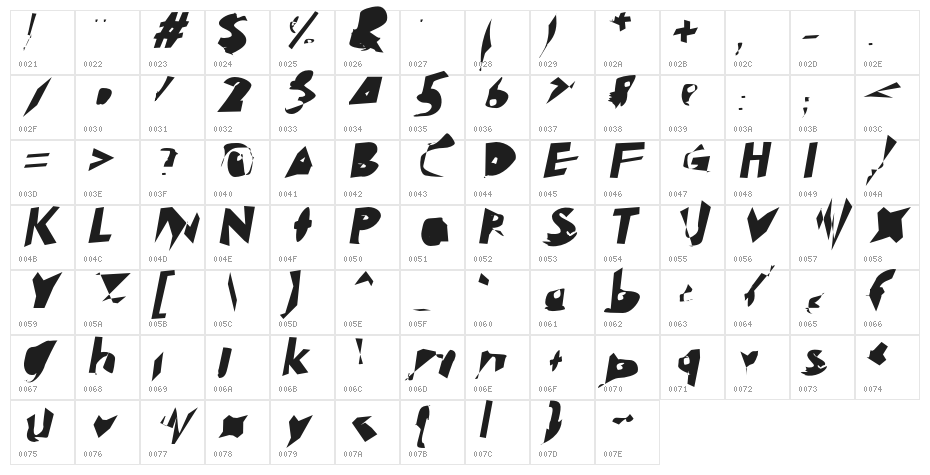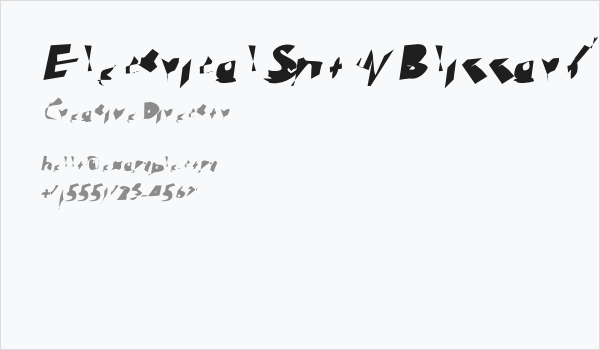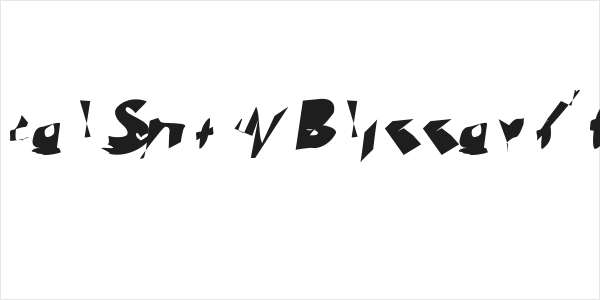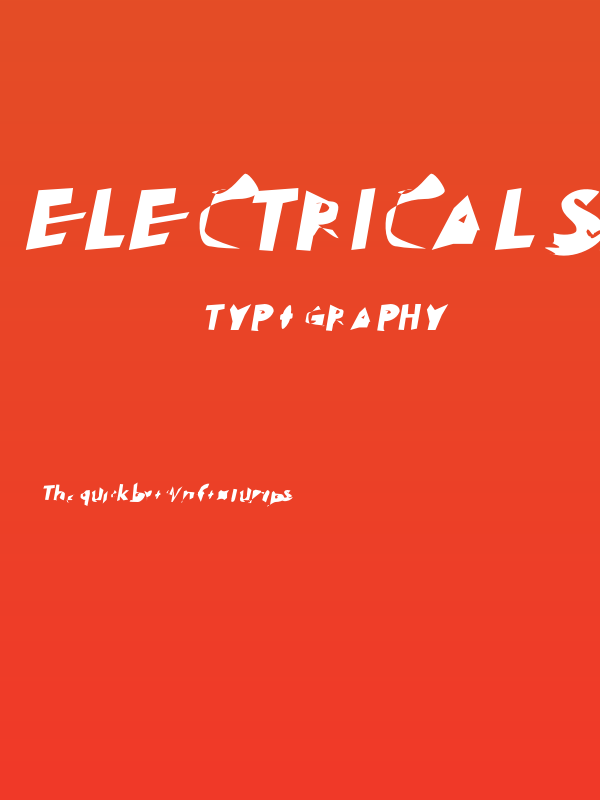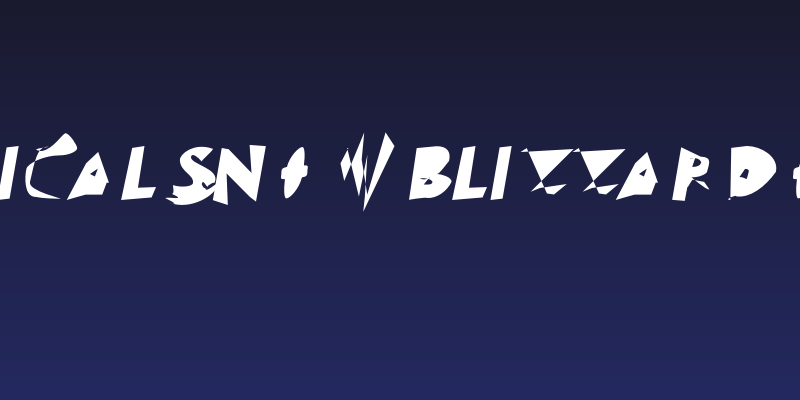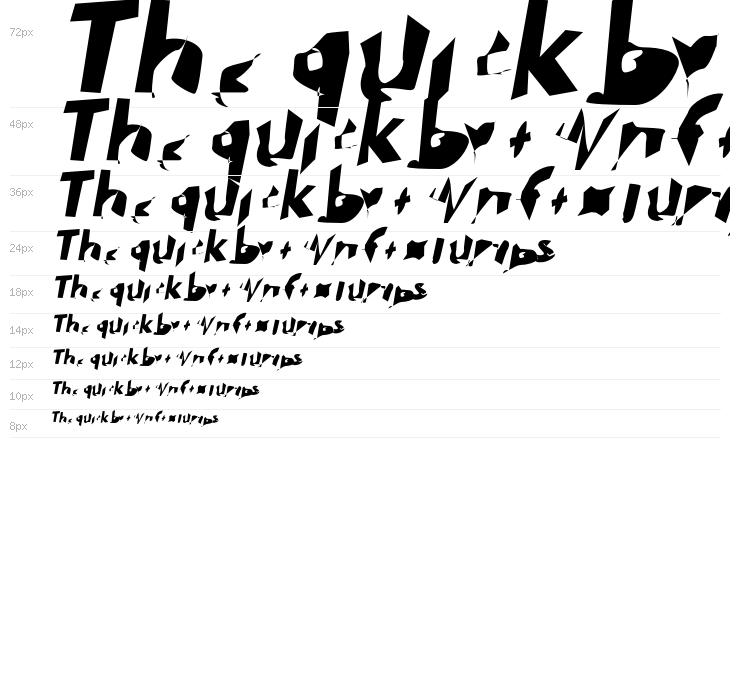
Electrical Snow Blizzard Oblique Font
Electrical Snow Blizzard Oblique Description
This font features a dynamic and edgy design, characterized by sharp angles and irregular shapes that create a sense of movement and energy. The letters appear to be fragmented or shattered, giving it a unique and chaotic appearance. This style evokes a sense of urgency and modernity, making it stand out in any design. The uppercase and lowercase letters maintain this fragmented style, while the numbers and special characters follow suit, ensuring consistency throughout the font. The overall aesthetic is bold and impactful, suitable for projects that require a strong visual statement.
| Proposed Projects | Ideal for edgy branding, music album covers, event posters, and digital art projects. |